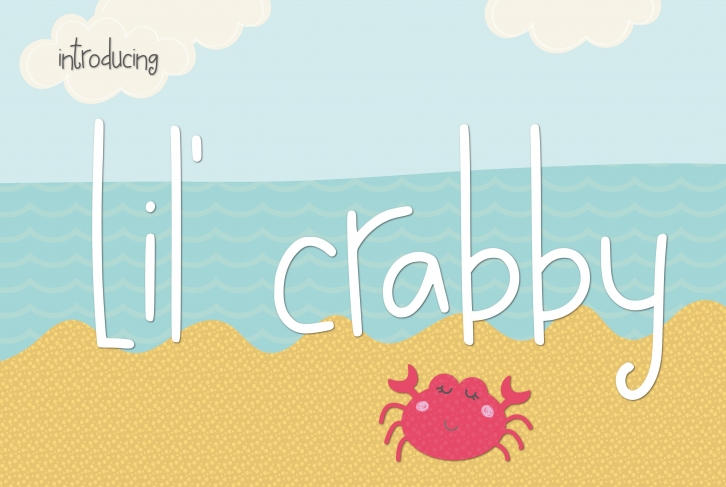
Looking for a fun and unique font for your next crafting project? Look no further than Lil’ Crabby Font! This playful font was specifically designed with crafters in mind and is sure to add a touch of personality to whatever you’re working on.
Whether you’re making a handmade card or scrapbooking page, Lil’ Crabby is the perfect way to add some charm. Each letter has its own individual personality, and they all come together to create a truly one-of-a-kind look. So if you’re looking for something a little different, this is the font for you.